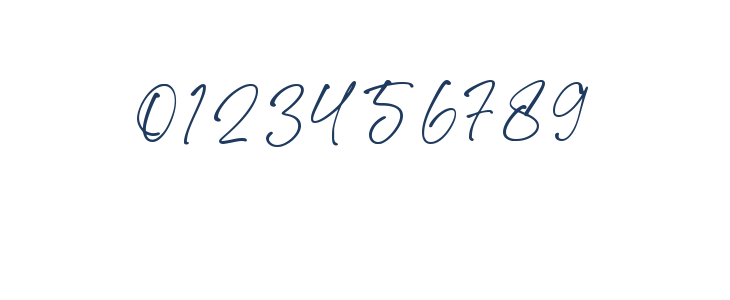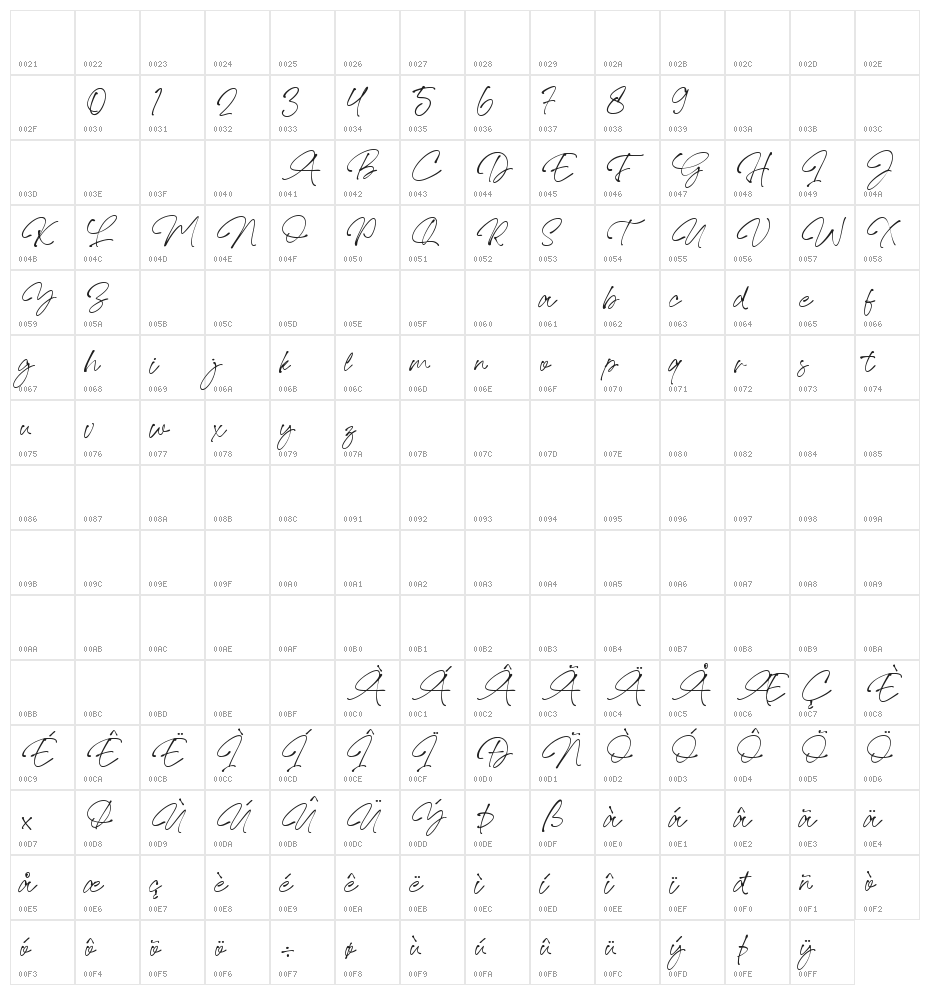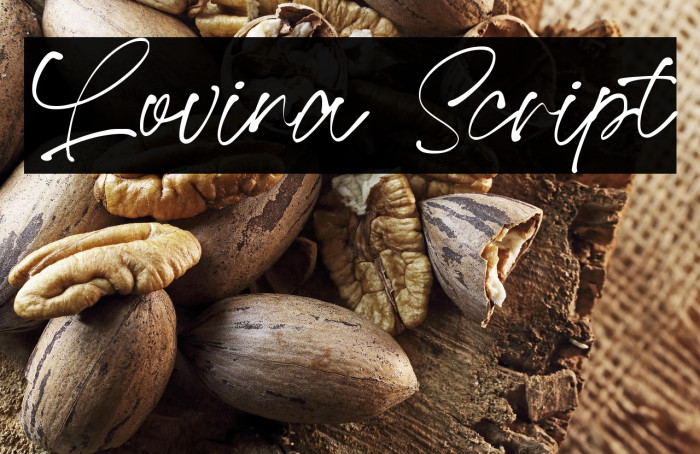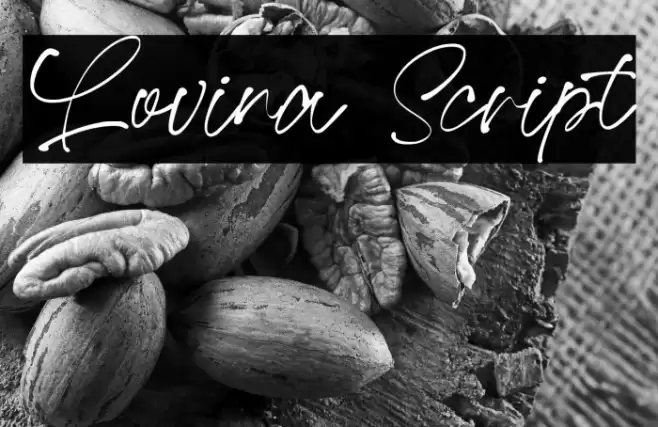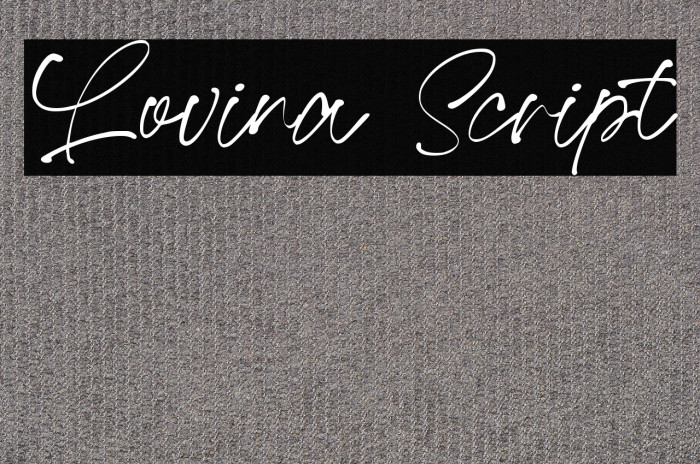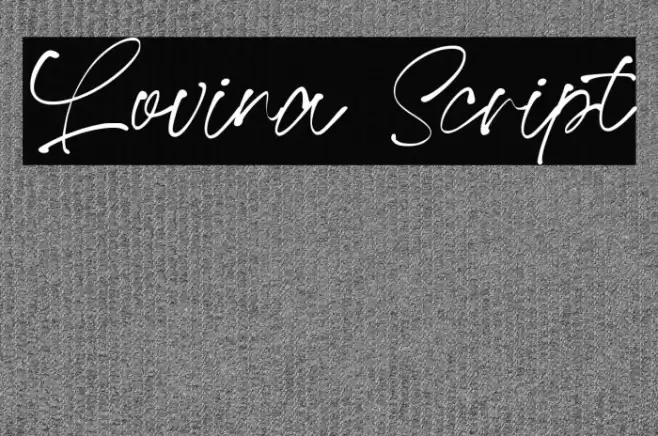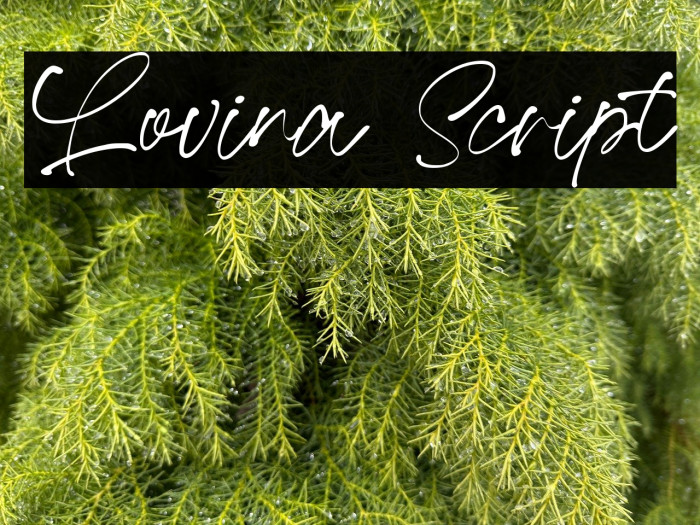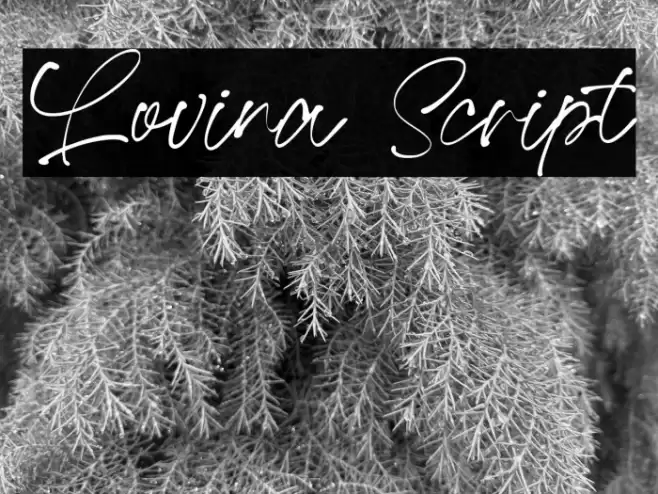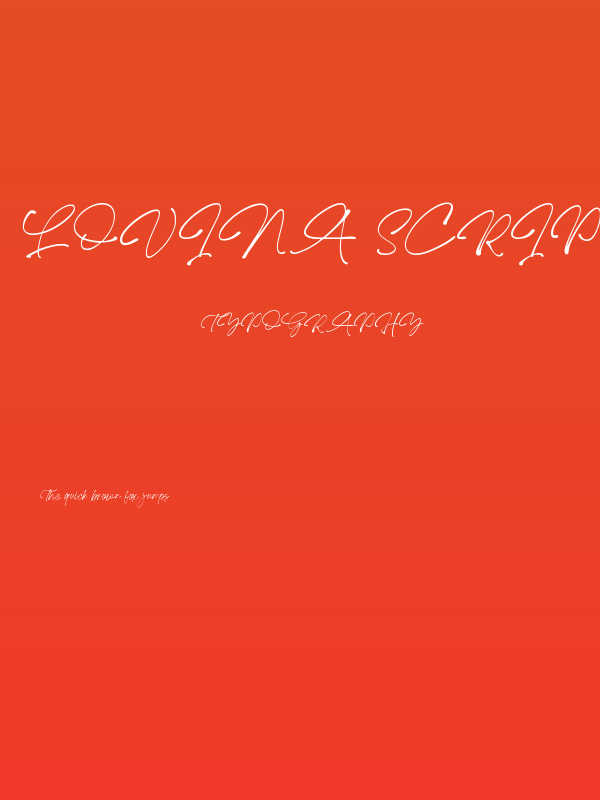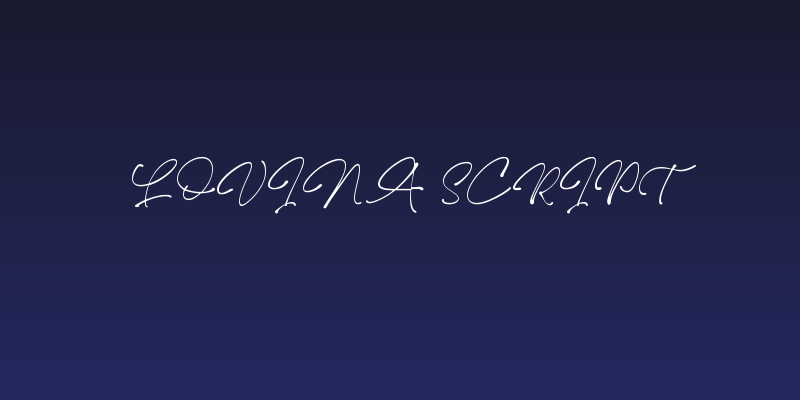
Lovina Script Font
Lovina Script Description
This elegant script font features a flowing, cursive style that mimics natural handwriting. The uppercase letters are gracefully connected, while the lowercase letters exhibit a smooth, continuous flow. The font's strokes are thin and delicate, with subtle variations in thickness that add to its charm. The numerals maintain the same fluidity, ensuring consistency throughout. This font exudes a sense of sophistication and romance, making it ideal for projects that require a personal touch.
| Overall Style | Elegant, Romantic |
| Proposed Projects | Ideal for wedding invitations, greeting cards, personal branding, and elegant packaging designs. |